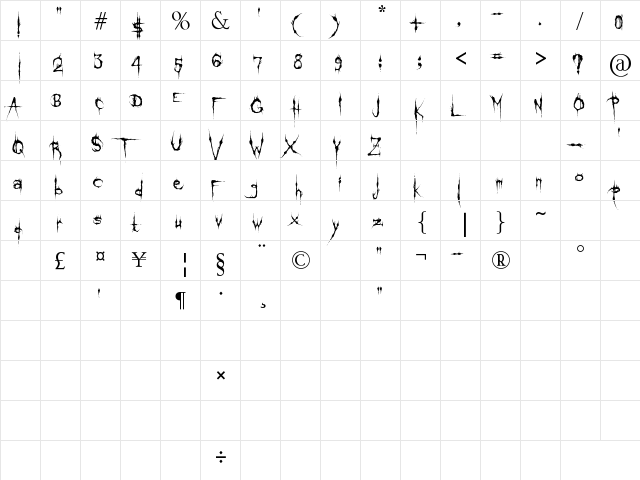
Klinge Death Brush Regular
Design Context for Klinge Death Brush Typeface
Klinge Death Brush leans into the macabre with letterforms designed to disturb and intrigue in equal measure.
Ideal for Halloween projects, horror film titles, haunted house signage, and dark editorial design.
Font Pairing: Pair with a clean neutral sans-serif for body copy to let Klinge Death Brush's character lead without overwhelming the composition.
Pro Tip: Klinge Death Brush works best as a headline or focal element. Pair it against plain, neutral body text to amplify the contrast.